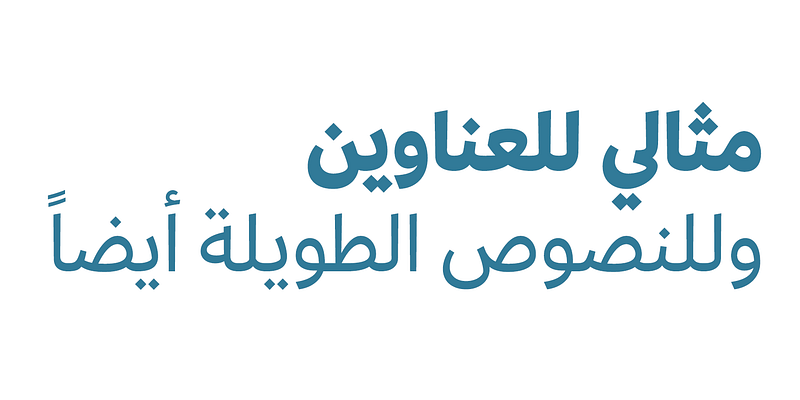
Effra Arabic Font Free Download is a modern, versatile Arabic typeface designed to harmonize seamlessly with its Latin counterpart, the original Effra font. With clean curves, open counters, and a contemporary structure, Effra Arabic brings clarity and sophistication to editorial layouts, websites, corporate branding, and user interfaces.
Built for legibility and elegance, this font supports a wide range of Arabic script variations and includes full multilingual Latin support, making it ideal for bilingual and global design projects. Its refined aesthetic ensures consistency across both print and digital platforms, while preserving the cultural nuances of Arabic typography.